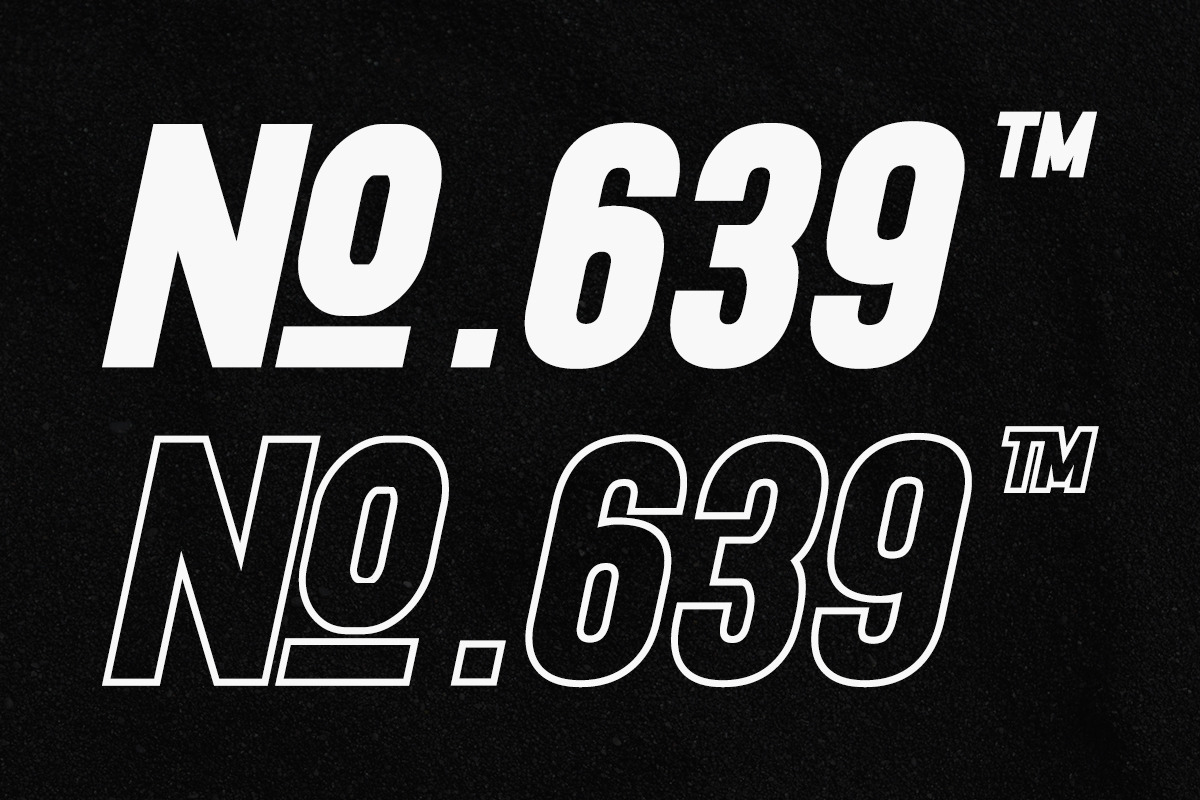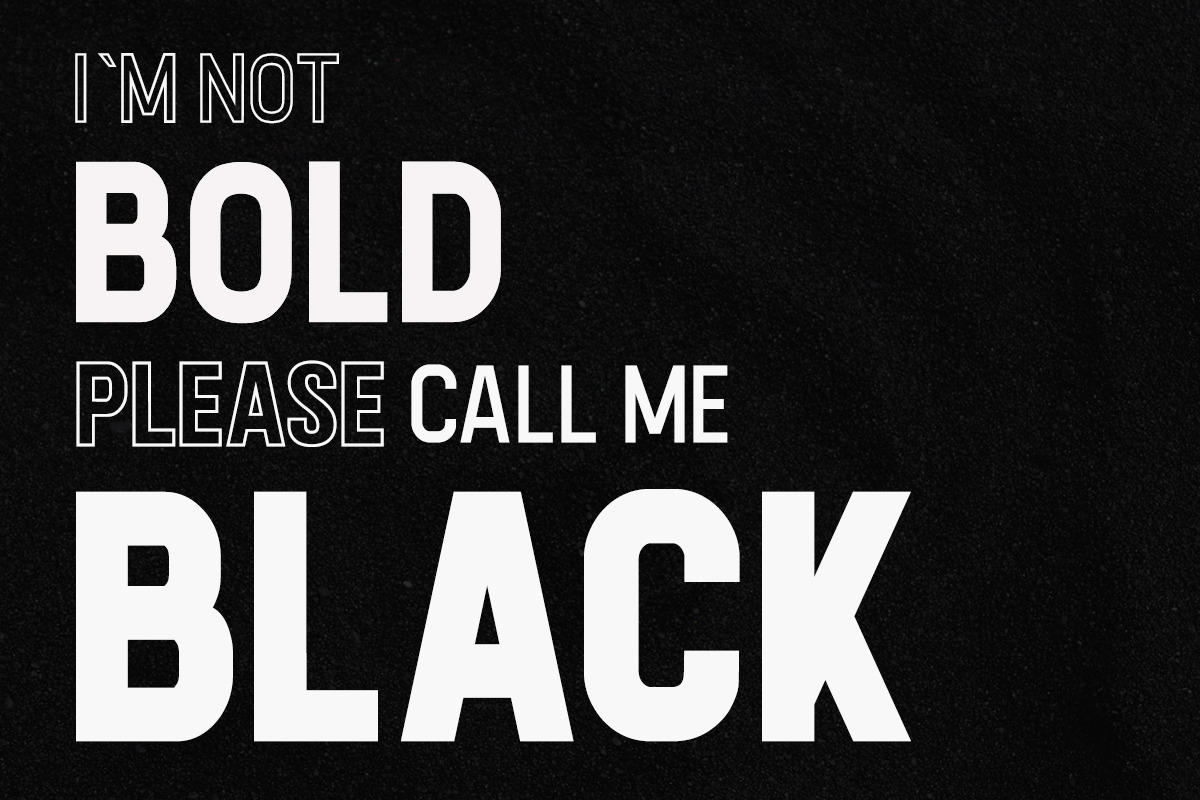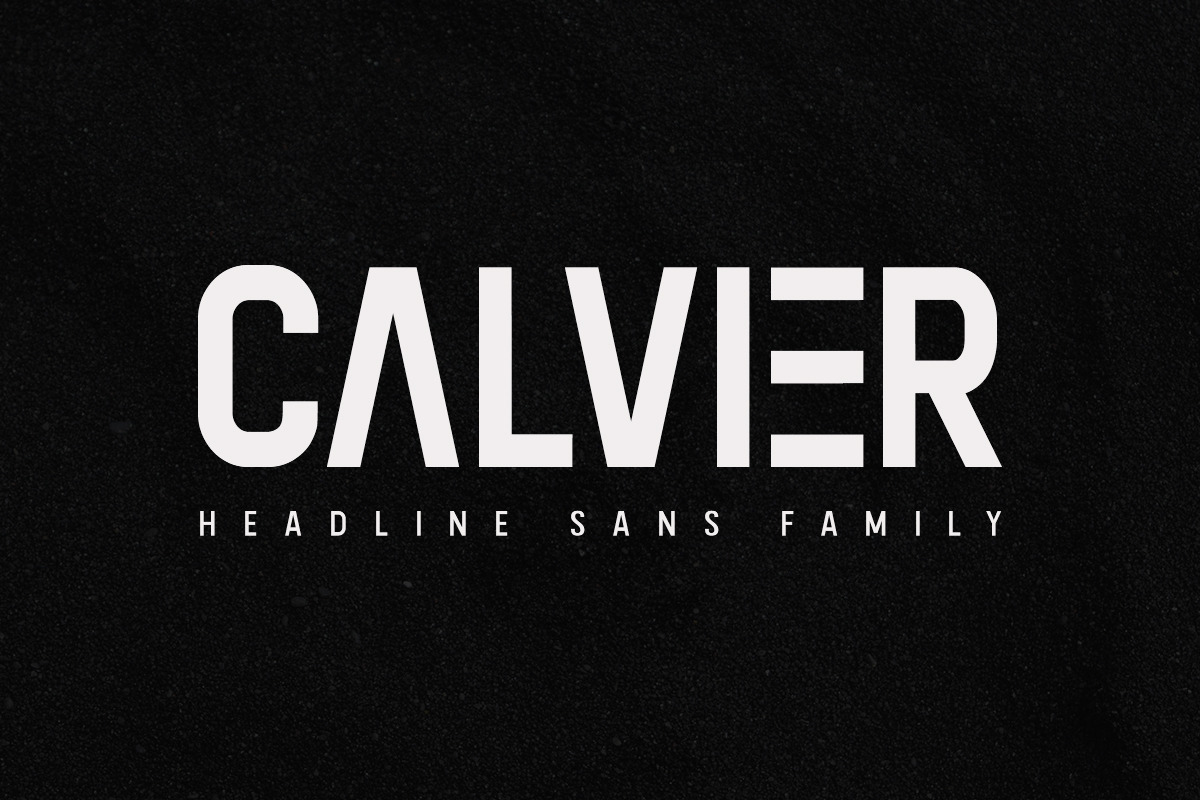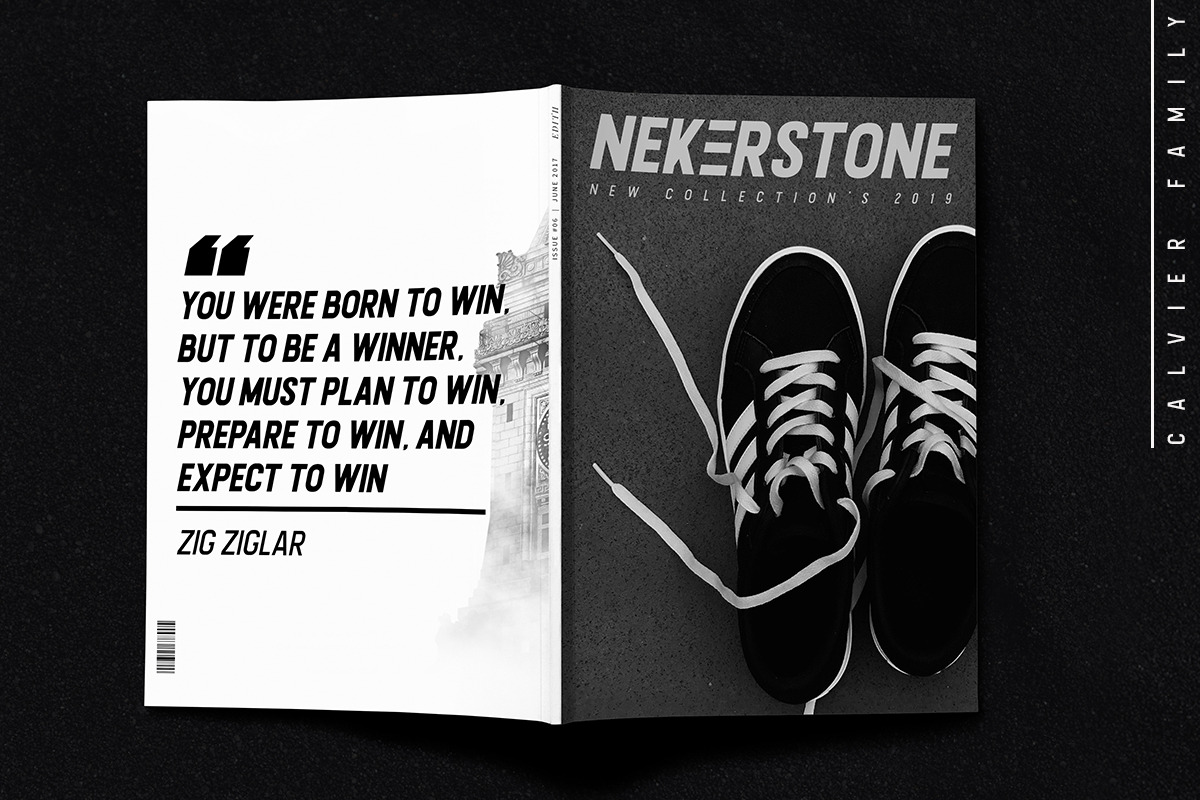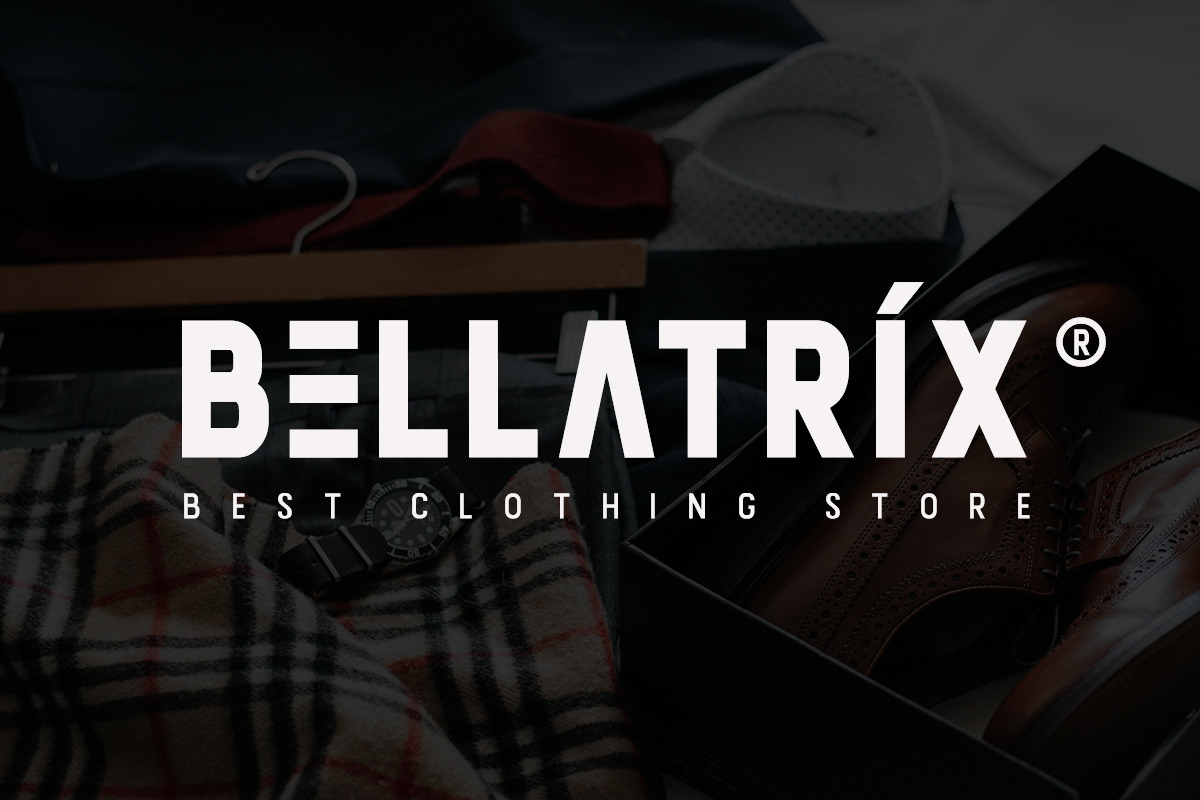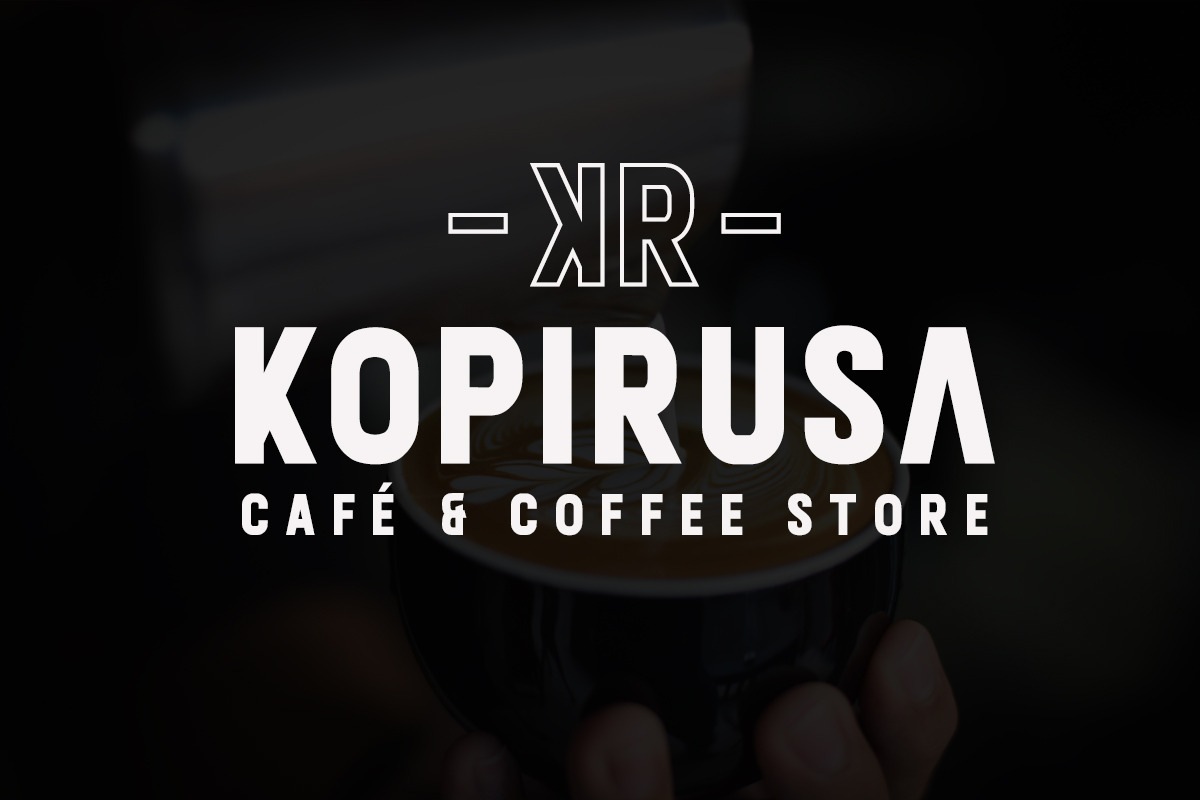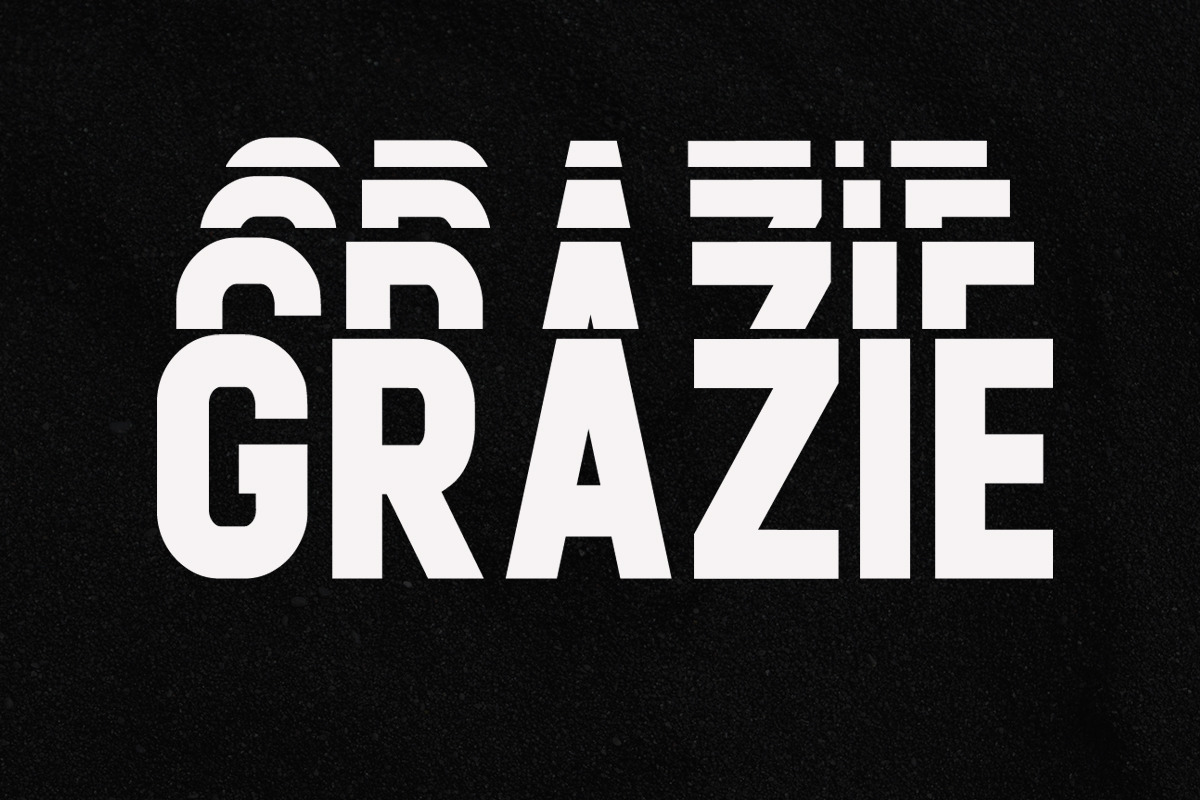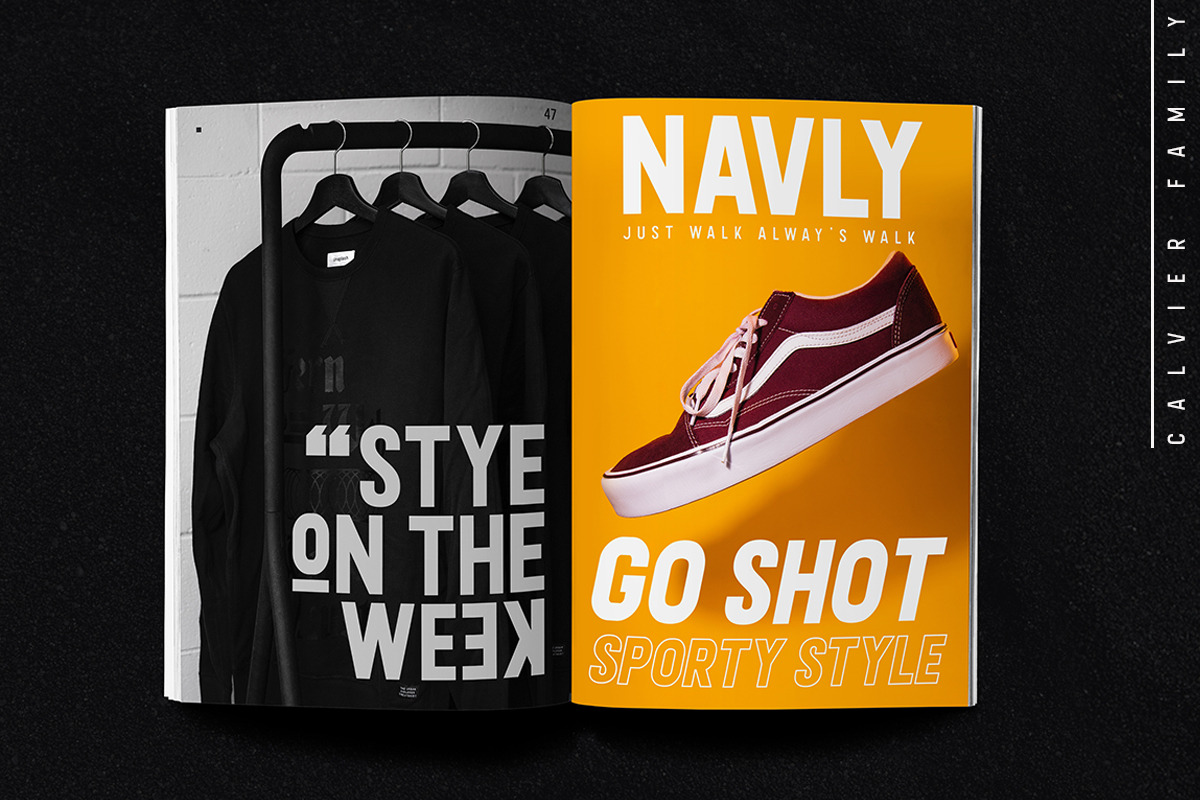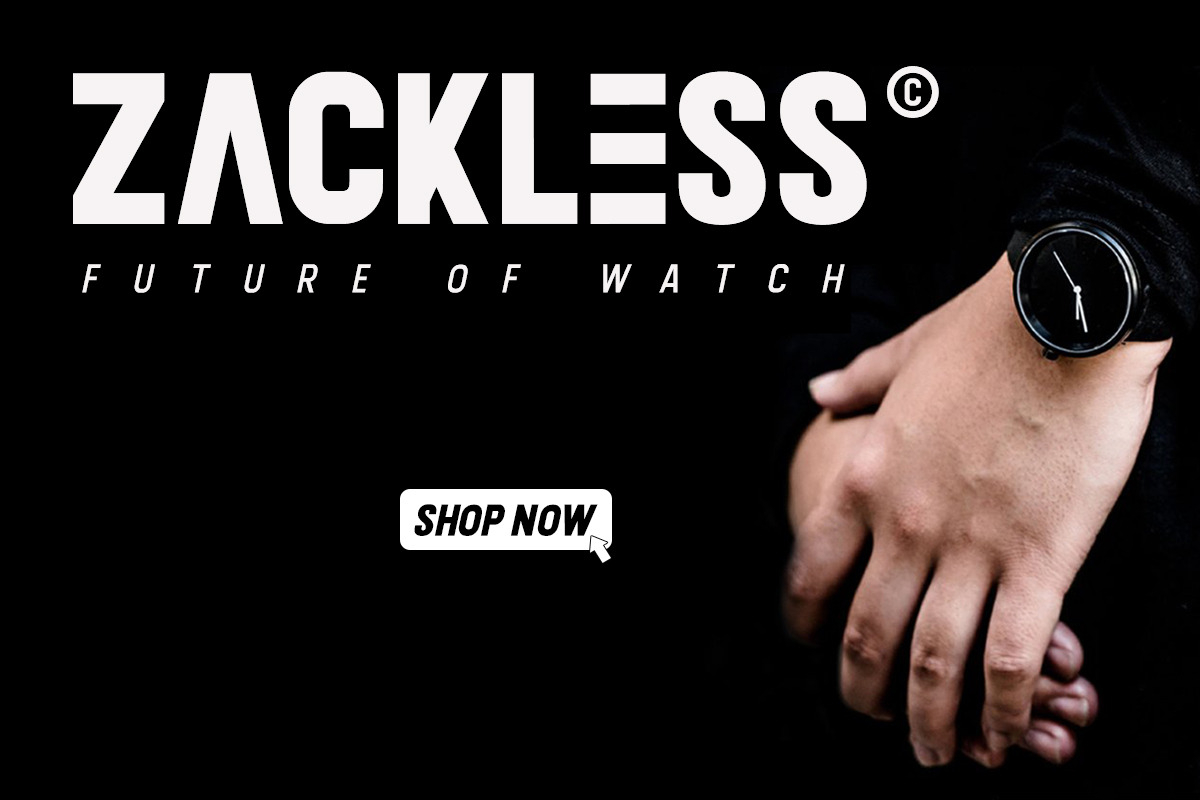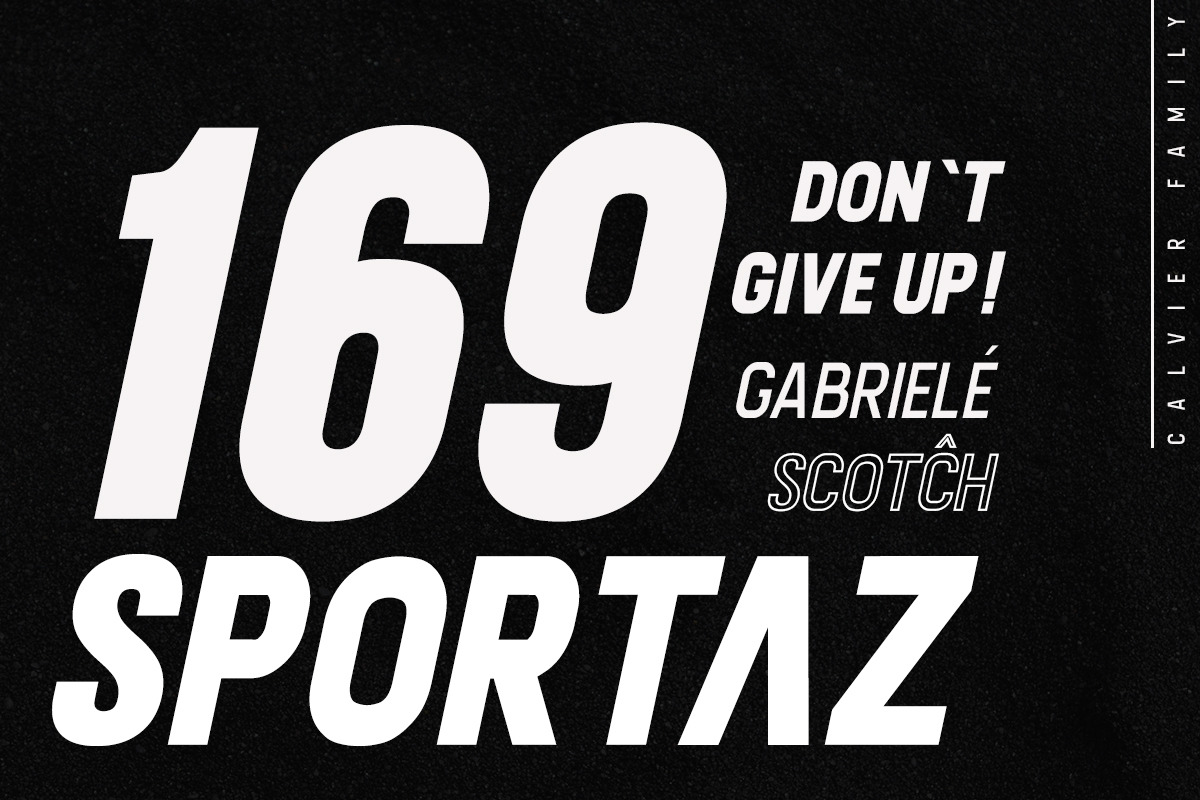
Calvier - Headline Sans Family
Introducing Calvier Headline Sans Family ,Designed for an impactful and stylish visual impression especially on Headline,logos and posters. Calvier's has semi humanist and semi geometric details and extensive language support Calvier's have four weights Regular,italic and hollow style Calvier Sans Family makes a strong impression in print, video,headlines and social media – always be the best choice and easy to read clear and comfortable whether he is paired or stand alone as the main topic in your design.
-Four weights Italic and Hollow in 16 Font
-Extensive Multilingual support
-Titling / all caps design
-OpenType features (Alternate)